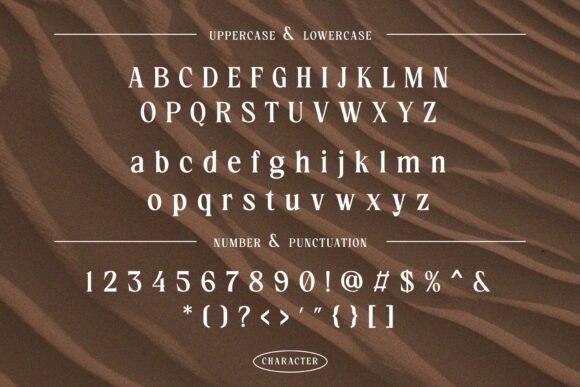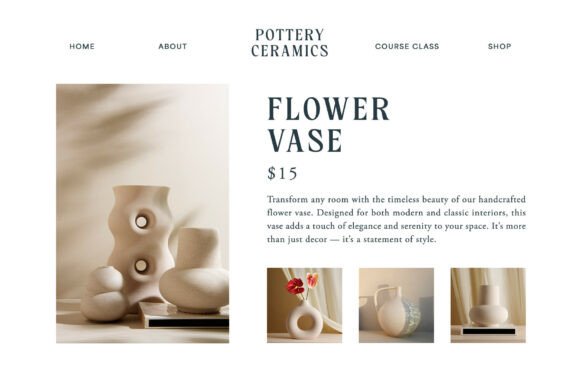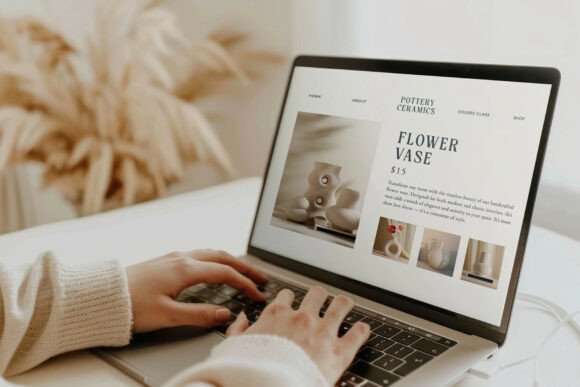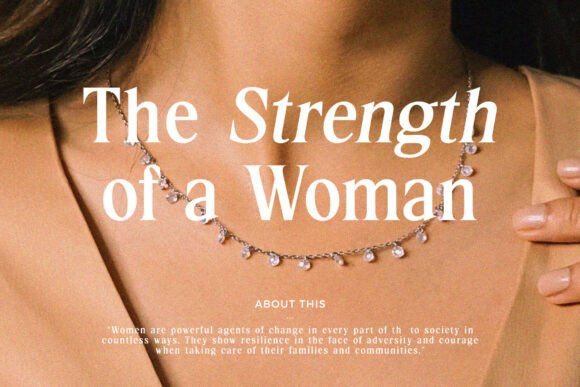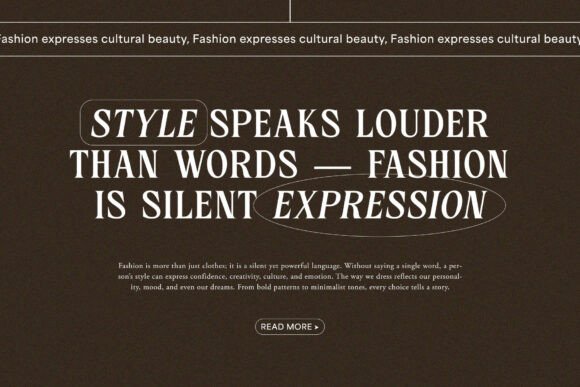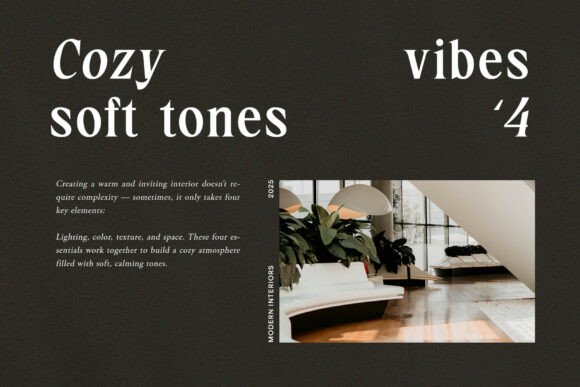
I still remember the frustration of working on a high-end fashion editorial project, searching for a font that could capture the essence of elegance and sophistication. My client wanted a typography style that exuded luxury, but I was struggling to find the perfect fit. That’s when I stumbled upon Featherly Font, a refined modern serif font that instantly became my go-to choice. In this article, I’ll share my experience with Featherly, its features, and how to make the most of it in your design projects.
First Impressions: What I Love About Featherly
Featherly Font has quickly become a staple in my typography arsenal, and here’s why:
- ✨ Timeless charm: Featherly’s classic serif design delivers a sense of sophistication and elegance, perfect for high-end branding, editorials, and wedding designs.
- ✅ Versatility: This font seamlessly blends traditional and modern aesthetics, making it suitable for a wide range of projects, from social media graphics to packaging designs.
- 💫 Soft beauty: Featherly’s gentle curves and refined lines evoke the lightness of feathers, adding a touch of whimsy to your designs.
Honest Review: A Few Quirks to Consider
While Featherly is an exceptional font, there are a few minor limitations to keep in mind:
- 🤔 Limited character set: Featherly’s character set is extensive, but it might not include every special character or glyph you need. Be sure to review the font’s capabilities before committing to a project.
- ⚠️ Requires OpenType support: To access Featherly’s advanced features, such as stylistic alternates and glyphs, you’ll need design software that supports OpenType fonts.
The Story Behind Featherly
Featherly’s design inspiration comes from the world of high fashion and the delicate beauty of feathers. Its creator aimed to craft a font that would evoke the sense of luxury and sophistication found in top fashion brands. With Featherly, you can bring a touch of that elegance to your designs.
| Font Name | Featherly Font |
| Author | Almeera Studio |
| What type of projects is Featherly best suited for? | Featherly is ideal for branding, editorials, social media graphics, packaging, and wedding designs. |
| Does Featherly support OpenType features? | Yes, Featherly supports OpenType features, including stylistic alternates and glyphs. |
| Is Featherly available in different weights or styles? | Featherly comes in a range of weights and styles, making it versatile for various design applications. |
With Featherly Font, you’ll be able to elevate your typography and add a touch of elegance to your designs. Whether you’re a seasoned designer or a creative hobbyist, Featherly is an excellent choice for any project that demands sophistication and refinement.